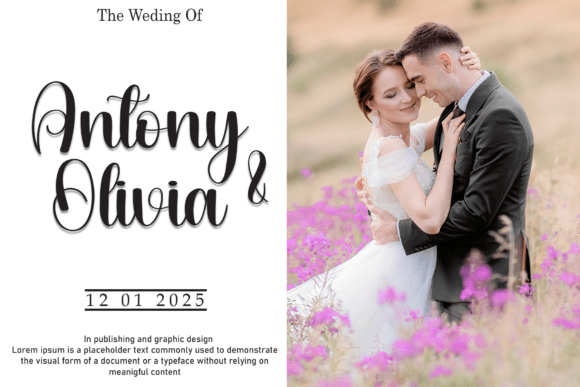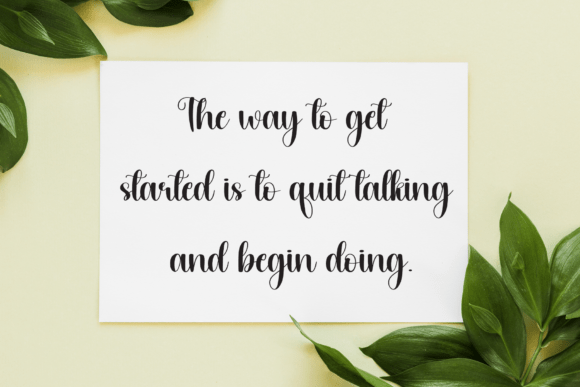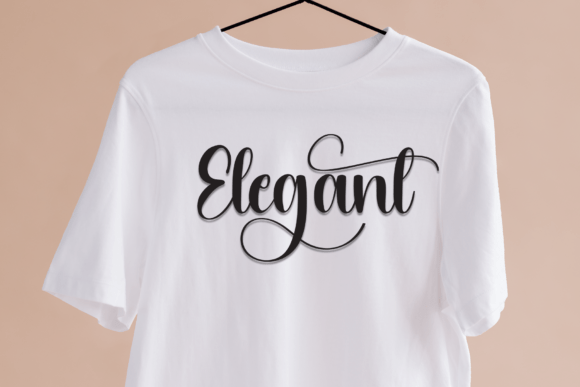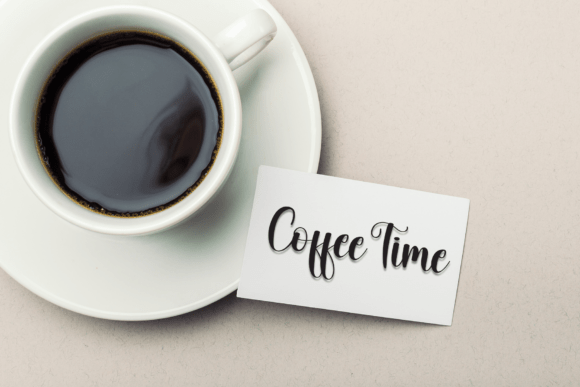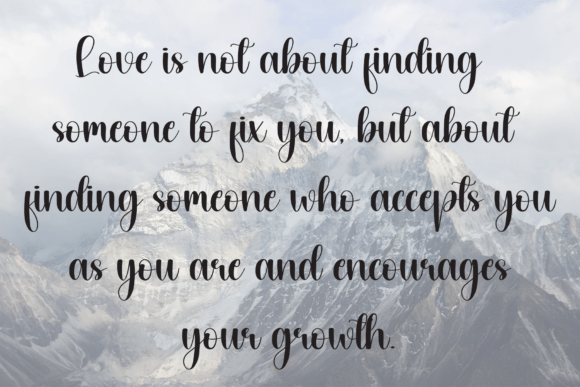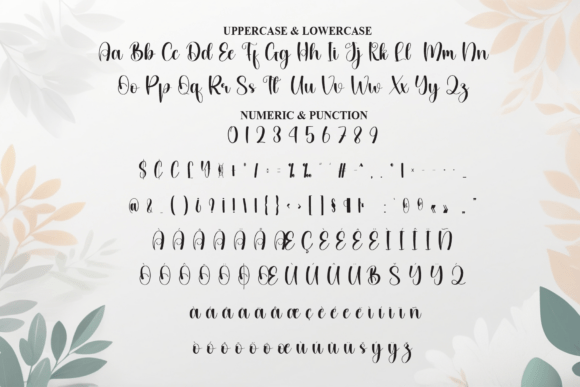
The Delight Font: Elevating Your Designs with Elegance and Charm
I’ll never forget the time I was working on a branding project for a luxury wedding planner. I had spent hours pouring over design concepts, but something felt off. The logo was beautiful, but the font I chose just didn’t seem to fit. It was then that I stumbled upon the Delight font. With its stylish handwritten script and effortless charm, it instantly elevated my design and exceeded my client’s expectations. In this article, I’ll share with you why Delight has become a go-to font in my toolkit and how you can make the most of it in your own projects.
An Honest Review of Delight Font
- ✨ Elegant and modern design that adds a touch of sophistication to any project
- ✅ Flowing strokes and organic curves that bring warmth and personality to your designs
- 💫 Highly versatile and suitable for a wide range of applications, from branding and invitations to social media and more
- 🎨 Beautiful OpenType features, glyphs, and stylistic alternates that allow for endless creativity
While Delight is an exceptional font, there are a few things to keep in mind:
- ⚠️ Some of the more intricate swashes and flourishes may not display correctly in older software or browsers
- 🤔 The font’s elegance and sophistication may not be the best fit for very casual or playful projects
The Story Behind Delight Font
Delight was designed by a team of typographers who wanted to create a font that would bring a touch of elegance and sophistication to any project. Inspired by the flowing scripts of the past, they crafted a modern, stylish font that would be perfect for creative professionals and hobbyists alike. With its beautiful OpenType features and effortless charm, Delight has quickly become a favorite among designers.
Q: What type of projects is Delight best suited for?
A: Delight is a versatile font that can be used for a wide range of projects, from branding and invitations to social media and more.